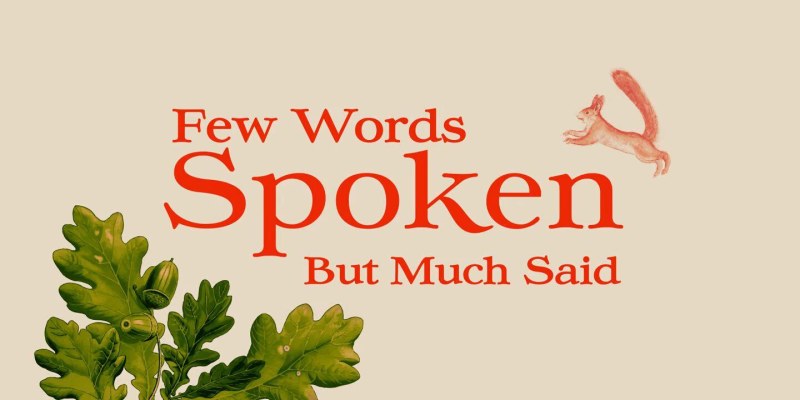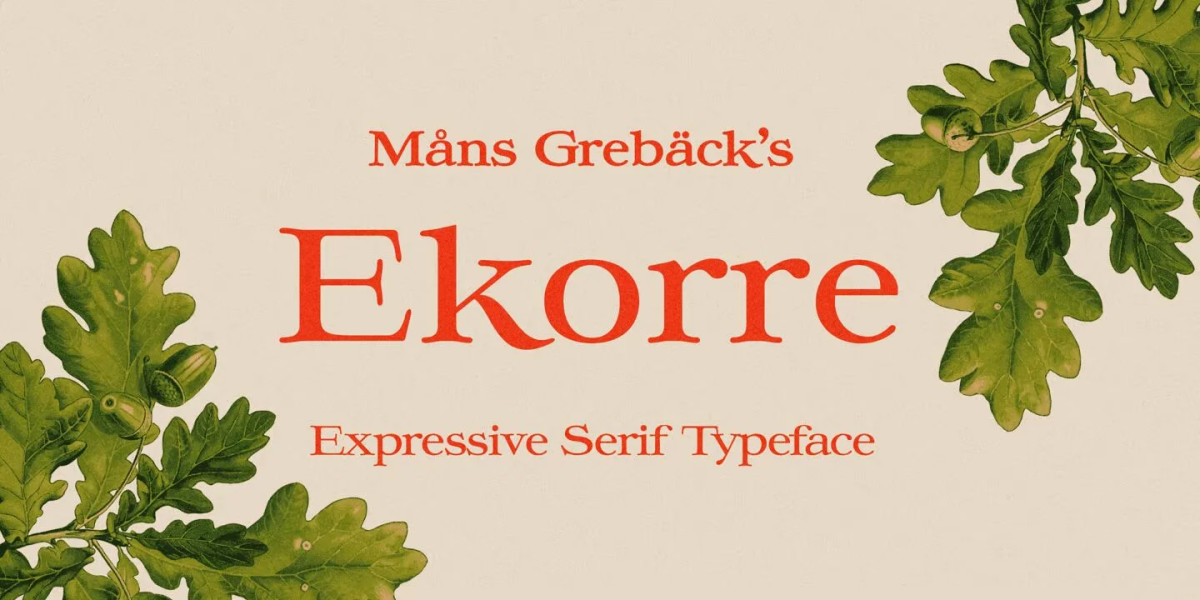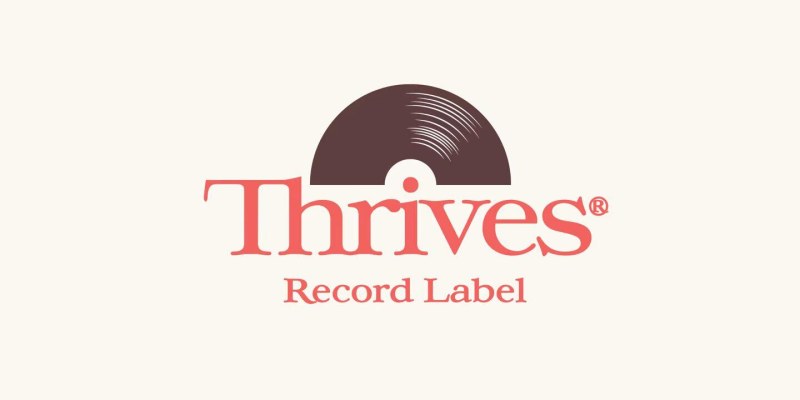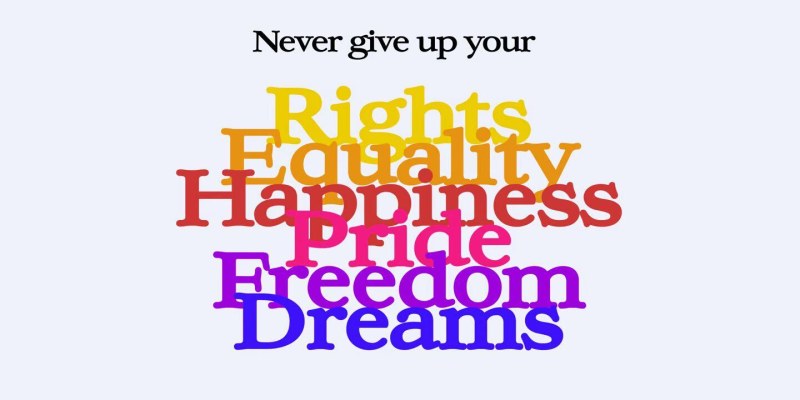
Ekorre Font Family
Ekorre is a professional serif typeface. Drawn and created by Mans Greback in 2021, this creative font family has a vivid retro style and a strong personality, and is co…
Ekorre is a professional serif typeface. Drawn and created by Mans Greback in 2021, this creative font family has a vivid retro style and a strong personality, and is constructed with soft corners and flowing shapes. The letterforms express empathy, while retaining seriousness. It is provided in six complementing high-quality styles: Ekorre Regular, Ekorre Bold, Ekorre Black and each one as Italic.
Ekorre is built with advanced OpenType functionality and has a guaranteed top-notch quality, containing stylistic alternates, ligatures and more features; all to give you full control and customizability.
It has extensive lingual support, covering all Latin-based languages, from North Europa to South Africa, from America to South-East Asia.
It contains all characters and symbols you’ll ever need, including all punctuation and numbers.
Where Ekorre Font Family works best
Ekorre Font Family gives long-form text a classic, trustworthy rhythm — ideal for magazine spreads, annual reports and book interiors.
Pair Ekorre Font Family with generous letter-spacing for wordmarks in fashion, hospitality, wine and jewellery branding.
Use Ekorre Font Family for slide titles in Keynote, PowerPoint or Google Slides to add authority without looking dated.
What is Ekorre Font Family good for?